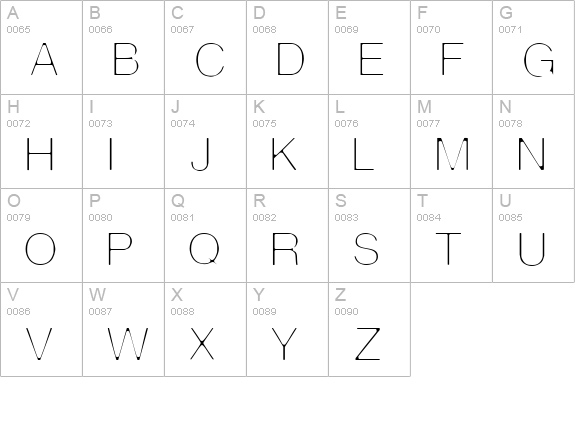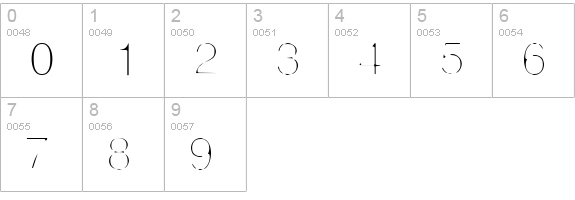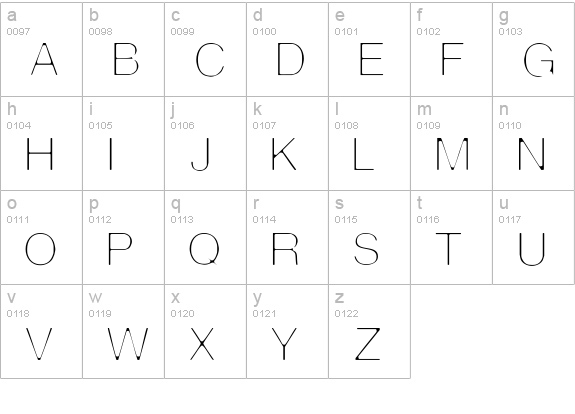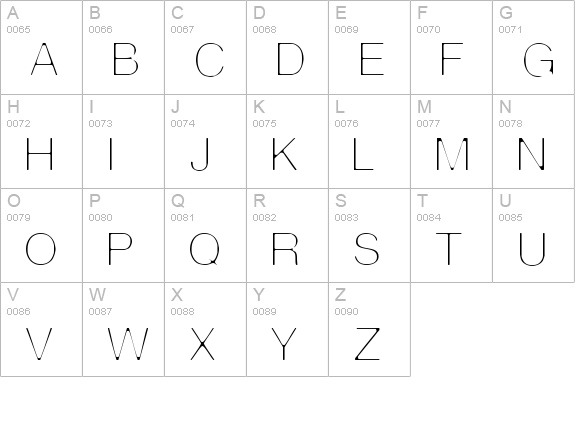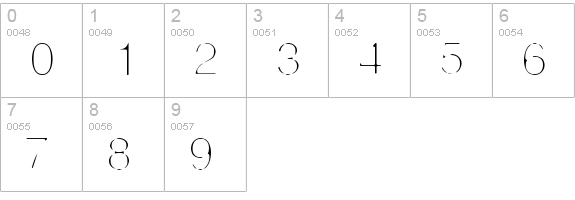
ThinMan Font Details
Introducing ThinMan, a sleek and sophisticated font that effortlessly combines modern elegance with timeless style. Designed with precision and attention to detail, ThinMan is the perfect choice for those seeking a refined and minimalist typography. With its slender letterforms and delicate curves, ThinMan exudes a sense of sophistication and refinement. Its clean lines and precise spacing create a harmonious balance, allowing each character to shine on its own while seamlessly integrating with others. This font is truly a testament to the beauty of simplicity. ThinMan is a versatile font that can be used for a wide range of design projects. Whether you're creating a logo, designing a website, or crafting a magazine layout, this font will elevate your work to new heights. Its timeless appeal ensures that it will remain relevant and impactful for years to come. And the best part? ThinMan is available for free! That's right, you can download this stunning font at FontsMarket.com without spending a dime. We believe that great design should be accessible to all, and ThinMan embodies this ethos by being freely available to anyone who wants to add a touch of elegance to their creations. So why wait? Download ThinMan today and unlock the power of stunning typography. Let this font become your go-to choice for all your design needs, and watch as your projects come to life with a newfound sense of sophistication and style. Embrace the beauty of simplicity with ThinMan, the font that sets you apart from the rest.